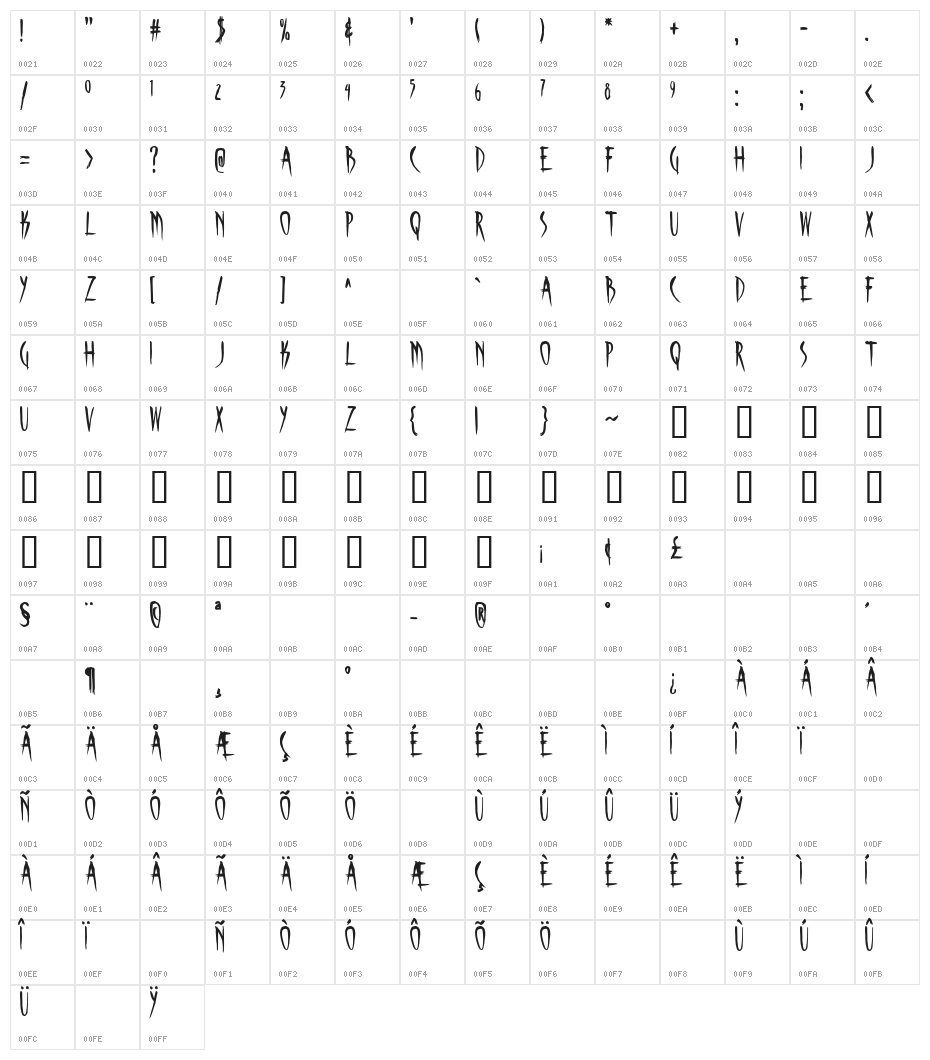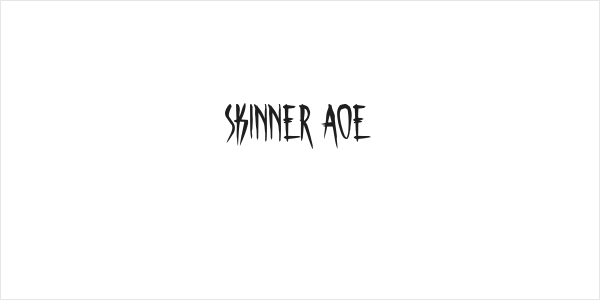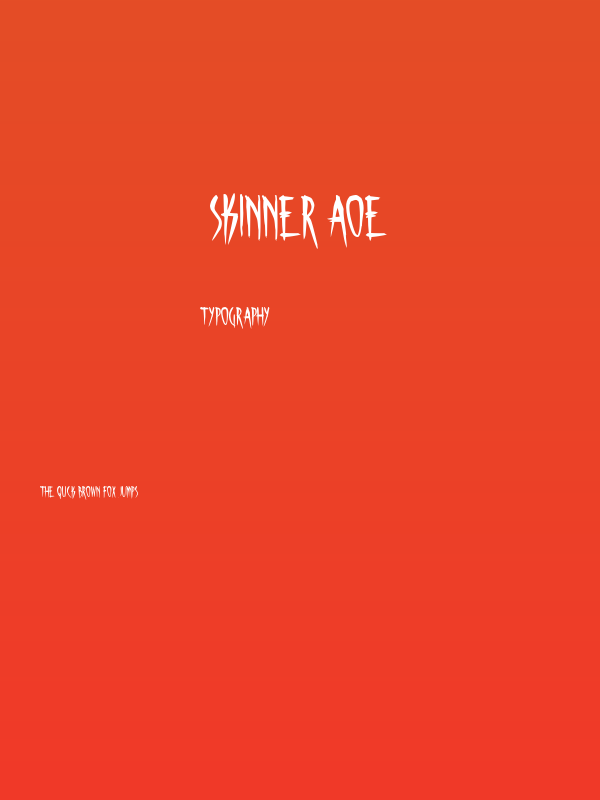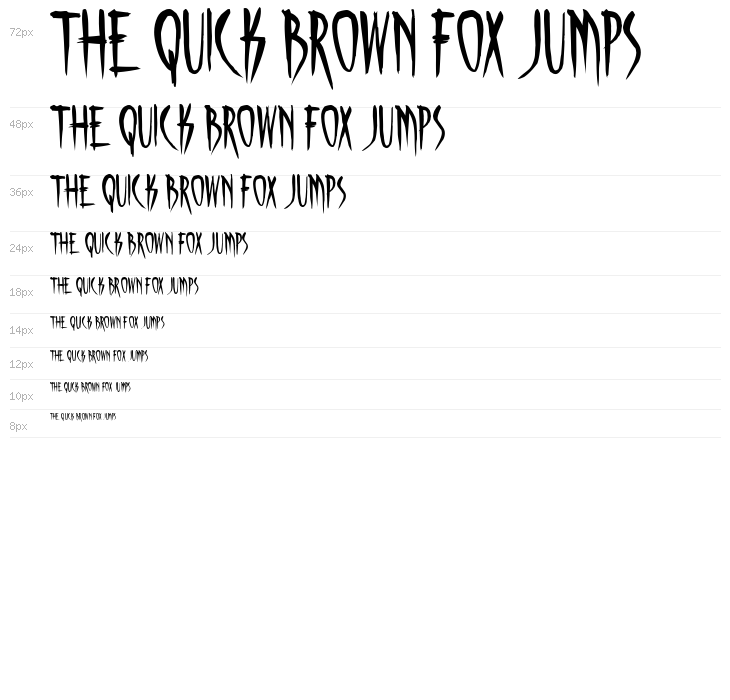
Skinner AOE Font
Skinner AOE Description
This font features a distinctive, edgy design with sharp, elongated strokes that give it a dramatic and intense appearance. The characters are tall and narrow, with pointed ends that create a sense of movement and energy. The uppercase and lowercase letters maintain a consistent style, enhancing the font's cohesive look. Numbers and special characters follow the same aesthetic, ensuring uniformity across all text elements. The font's unique style makes it ideal for projects that require a bold and striking visual impact.
| Proposed Projects | Ideal for horror-themed posters, Halloween invitations, edgy branding, and album covers. |